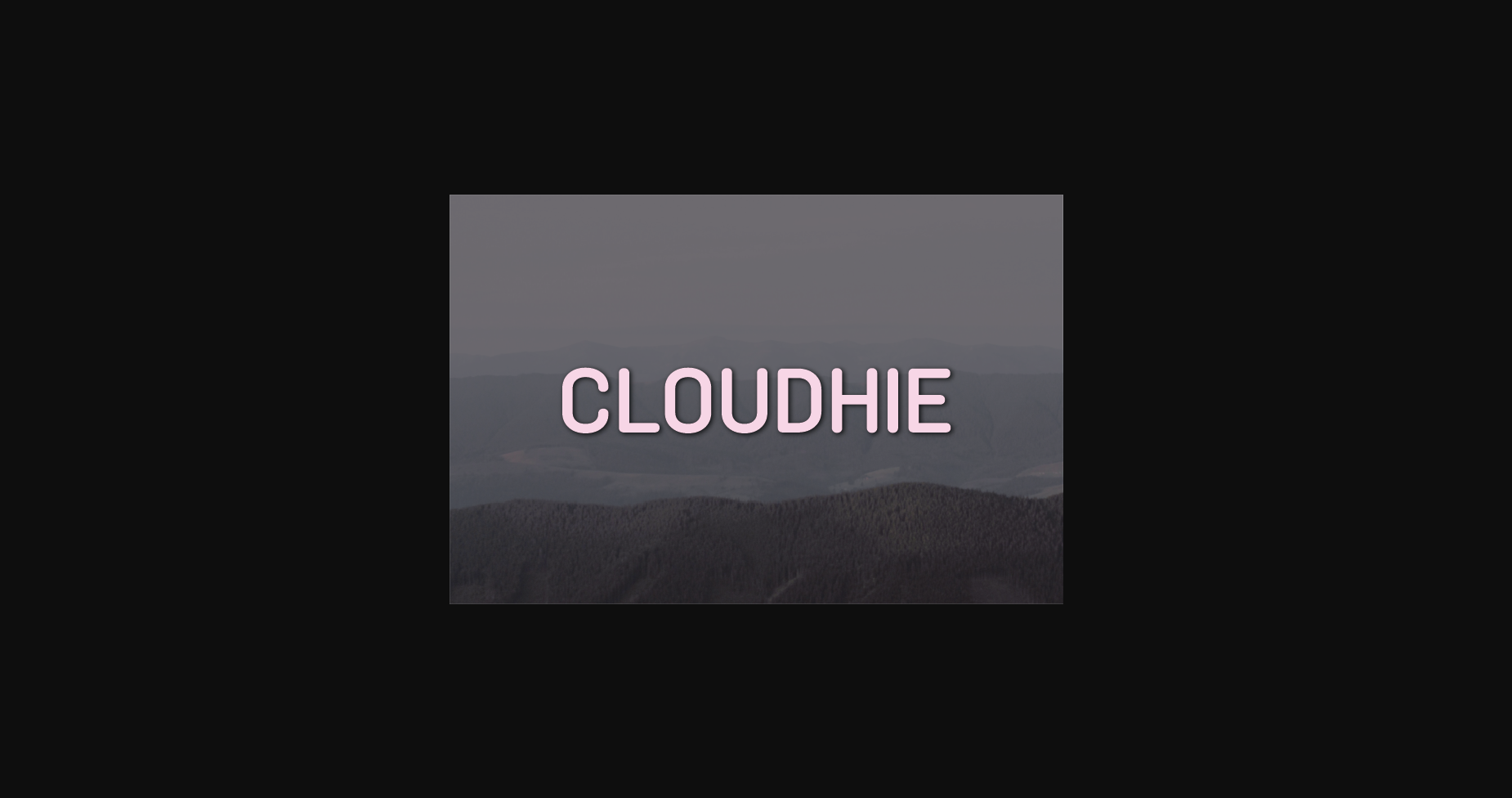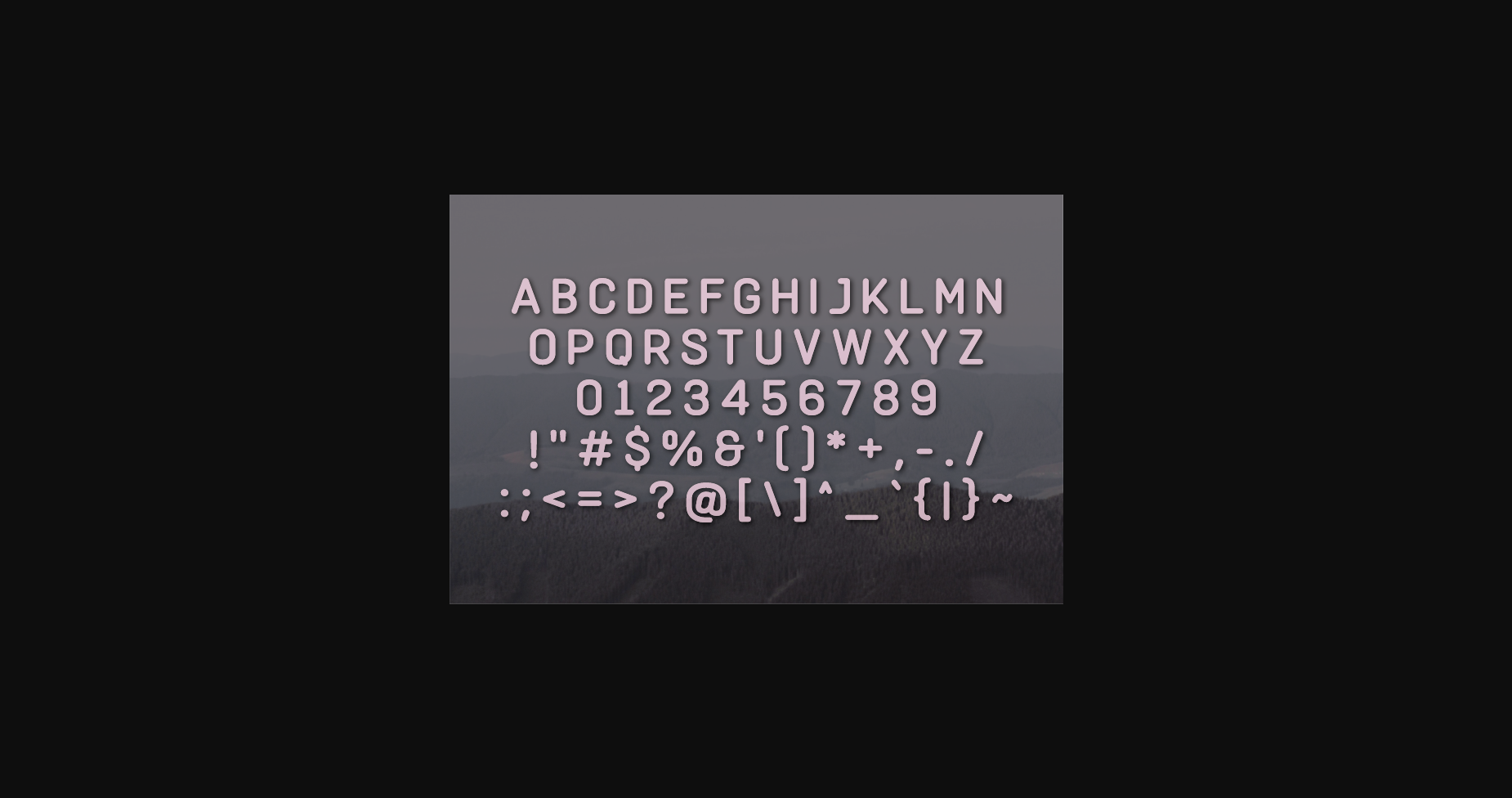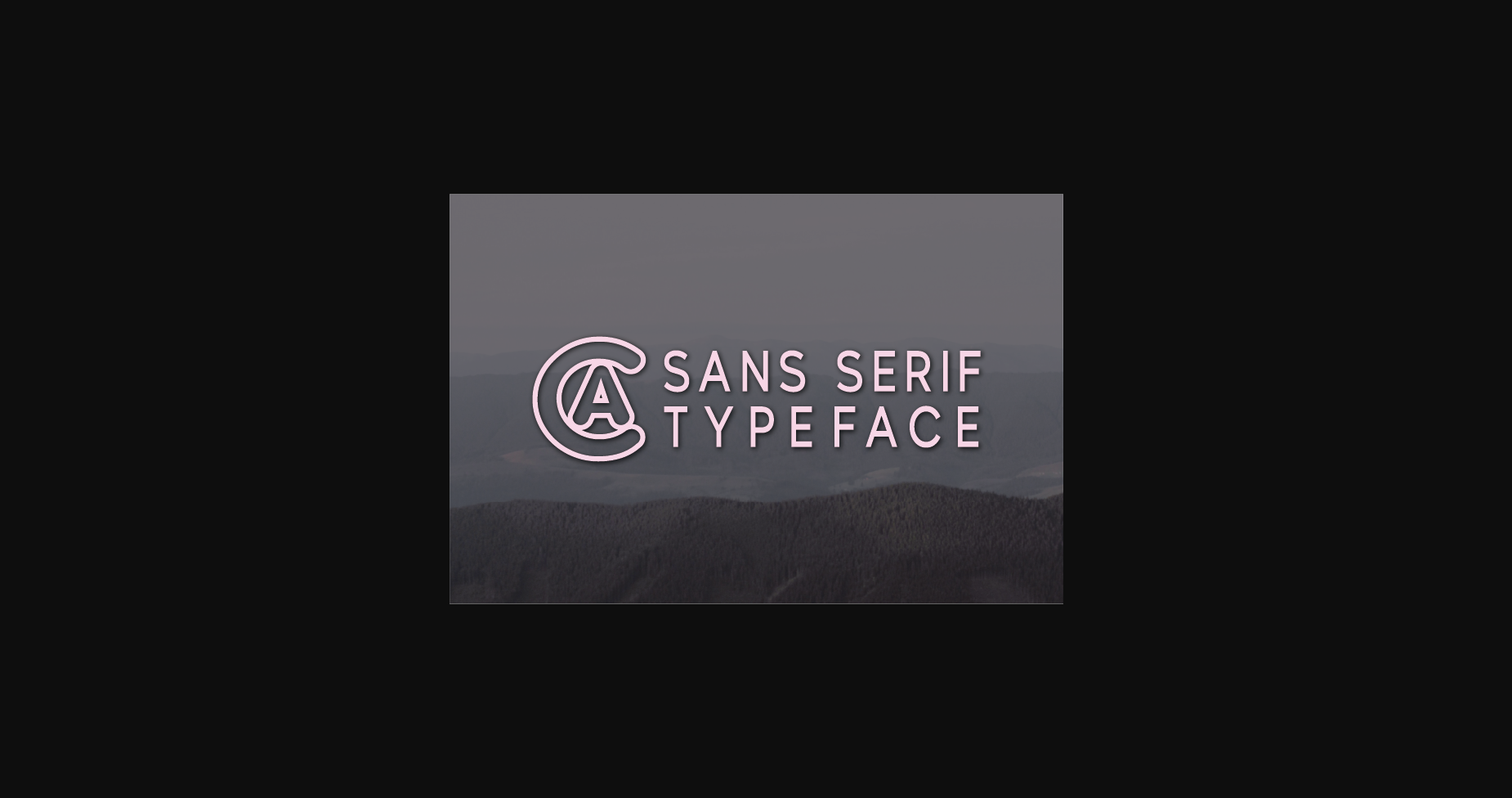
About Cloudhie Font
Introducing Cloudhie, a modern and classy sans serif typeface.
An extremely versatile font, perfect for logos, weddings, invitations, quotes, advertisements, print, magazines, and more!